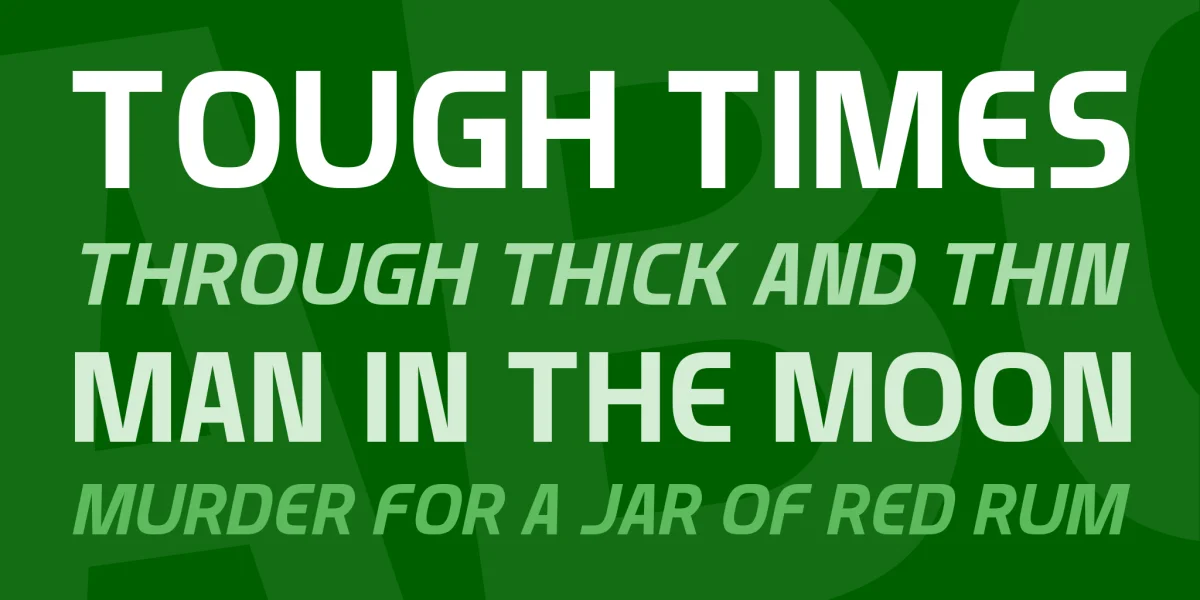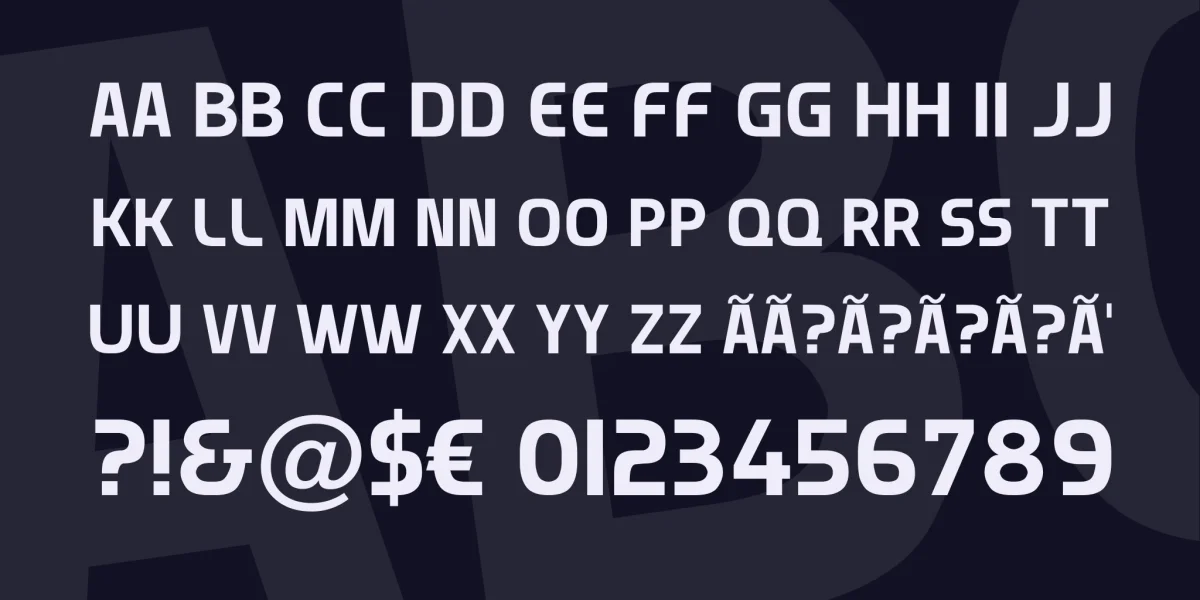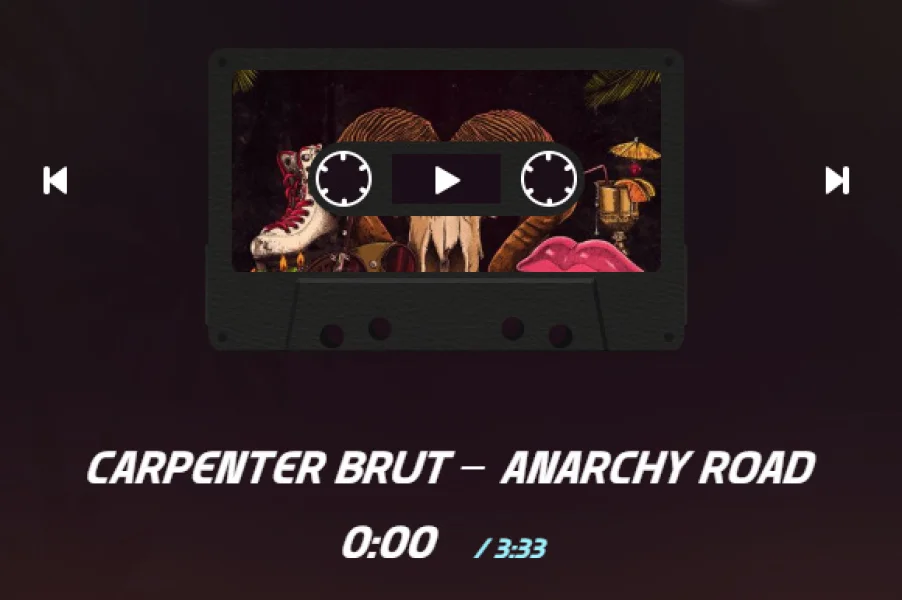
Munistic is a retro futurism font with a modern style. With it’s striking letters in two styles, Munistic is great for every design that needs to stand out.